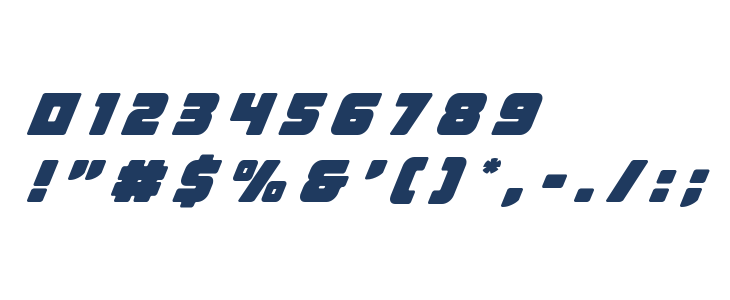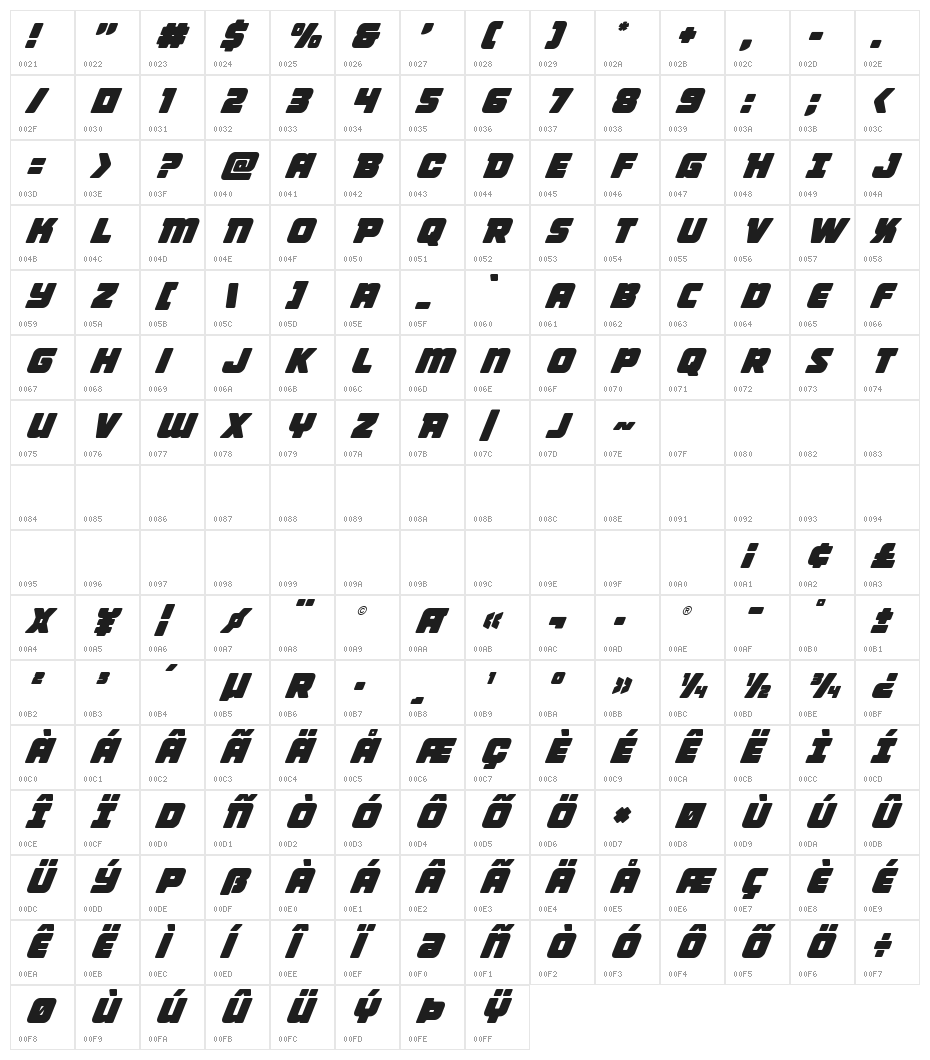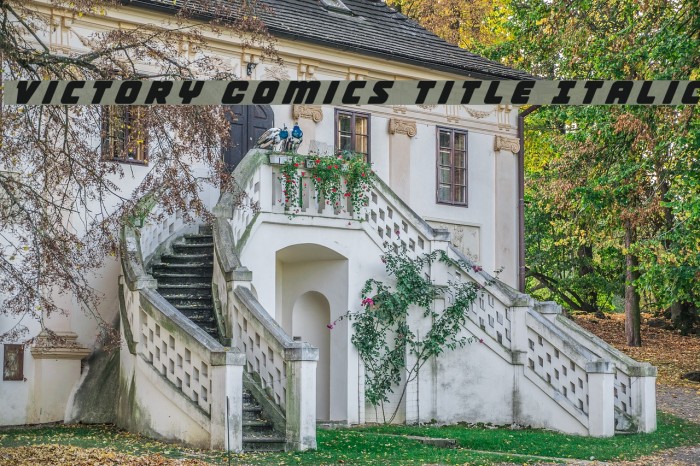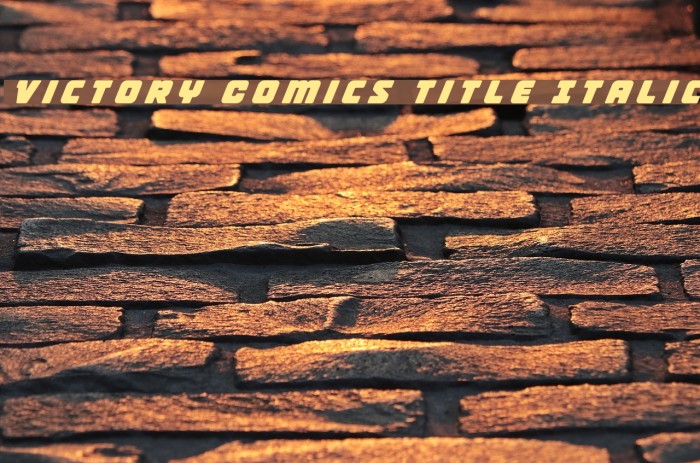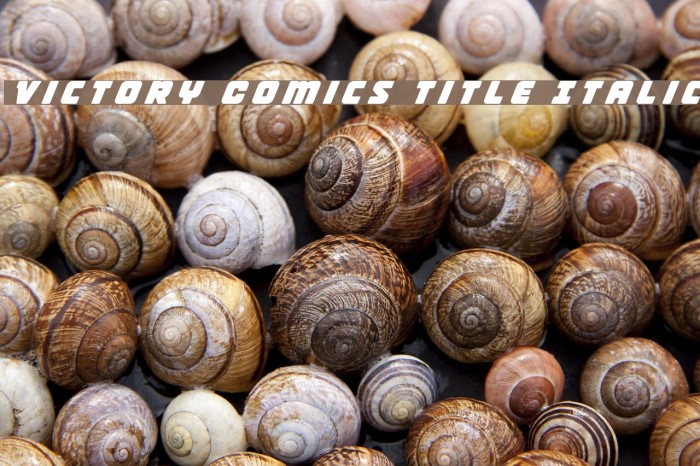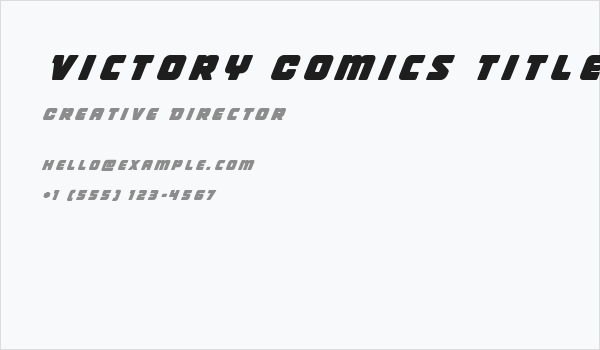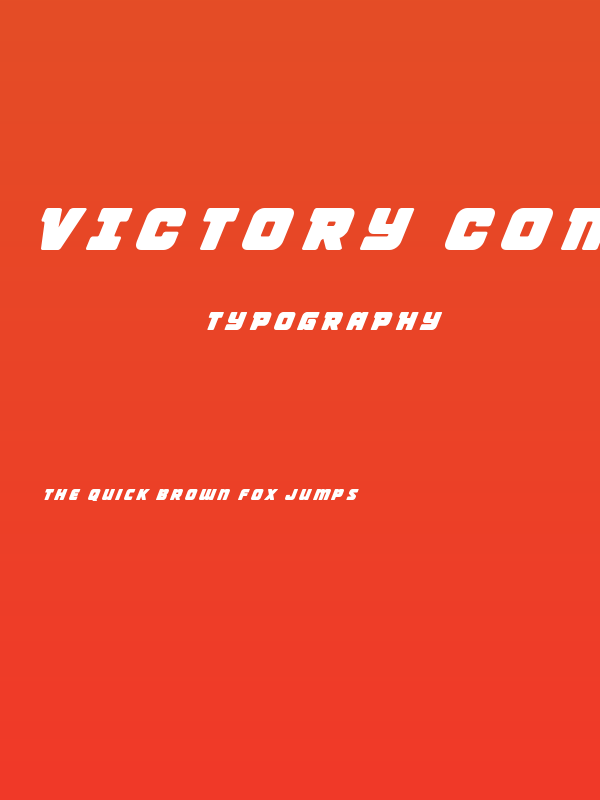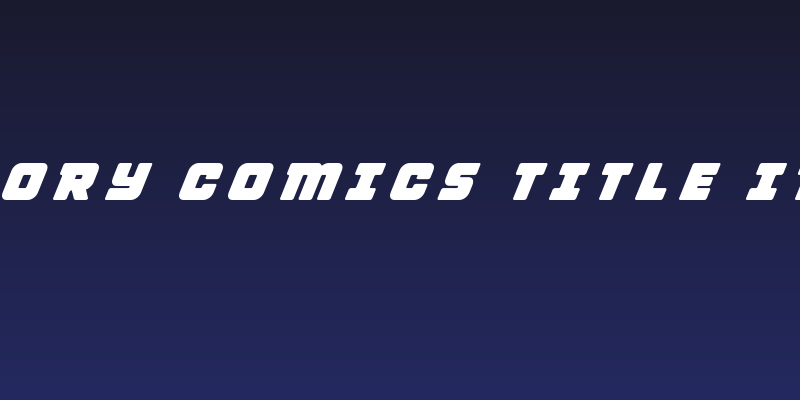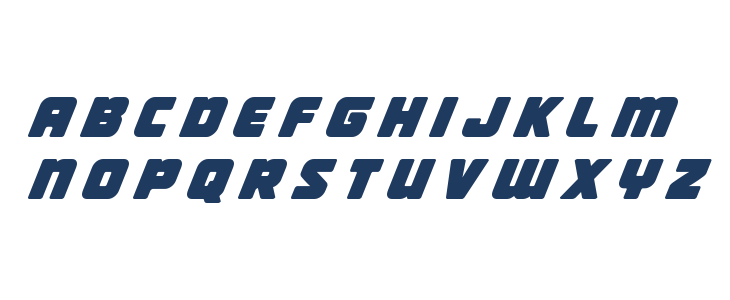
Victory Comics Title Italic Font
Victory Comics Title Italic Description
This bold, italicized font exudes a dynamic and energetic style, reminiscent of classic comic book titles. The characters are robust and slightly condensed, with a strong slant that adds a sense of motion and excitement. The uppercase and lowercase letters maintain a consistent weight, contributing to a cohesive and powerful visual impact. The numbers and special characters follow the same stylistic cues, ensuring uniformity across all elements. The font's thick strokes and minimal contrast make it highly legible, even at smaller sizes, while the italic angle enhances its dramatic flair.
Proposed ProjectsIdeal for comic book titles, posters, video game graphics, and any project requiring a bold, energetic typeface.